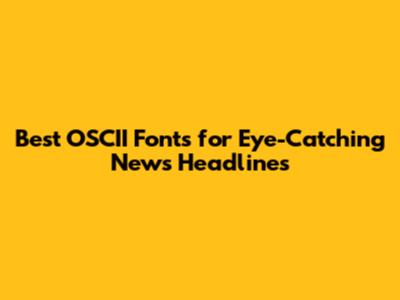
Best OSCII Fonts For Eye-Catching News Headlines
Choosing the right font for your news headlines is crucial. It’s the first thing readers see, and it can significantly impact whether they decide to click and read the full story. In this article, we'll dive deep into the world of OSCII fonts, exploring why they are effective for news headlines and highlighting some of the best options available. Let's get started, guys!
Why OSCII Fonts Matter for News Headlines
OSCII fonts, often characterized by their clean, geometric designs, offer a unique blend of modernity and readability that can greatly enhance the visual appeal of news headlines. Readability is paramount in news headlines; the font must be clear and easily decipherable at a glance. OSCII fonts, with their simplified letterforms, excel in this aspect, ensuring that readers can quickly grasp the headline's message. This is especially important in today's fast-paced digital environment, where attention spans are short, and users are bombarded with information. A well-chosen OSCII font can cut through the noise and capture the reader's attention effectively.
Moreover, OSCII fonts bring a sense of modernity to news headlines. Their sleek lines and minimalist designs align well with contemporary aesthetics, making the news content appear current and relevant. This can be particularly beneficial for online news platforms that want to project a forward-thinking image. The clean, uncluttered appearance of OSCII fonts also helps to create a sense of professionalism and credibility, which is essential for building trust with readers. In a world where misinformation is rampant, using a font that conveys reliability can make a significant difference in how the news is perceived.
Another advantage of OSCII fonts is their versatility. They can be used across various news categories, from hard news to lifestyle articles, without looking out of place. This adaptability makes them a practical choice for news organizations that need a consistent and cohesive branding strategy. Additionally, many OSCII fonts come in different weights and styles, allowing for further customization to suit specific design needs. Whether you need a bold font to grab attention or a lighter font for a more subtle approach, OSCII fonts offer the flexibility to achieve the desired effect.
Furthermore, OSCII fonts often render well on different devices and screen sizes, which is crucial in today's multi-platform environment. News headlines are viewed on desktops, laptops, tablets, and smartphones, and the font must maintain its readability and visual appeal across all these platforms. OSCII fonts are designed to be legible even at small sizes, ensuring that the headline remains clear and impactful regardless of the device used. This responsiveness is essential for providing a seamless user experience and maximizing engagement with the news content.
In summary, OSCII fonts are a valuable asset for creating effective news headlines. Their readability, modernity, versatility, and responsiveness make them a compelling choice for news organizations looking to enhance their visual communication. By carefully selecting the right OSCII font, news platforms can significantly improve the impact of their headlines and attract a wider audience.
Top OSCII Font Choices for News Headlines
Selecting the right OSCII font can be a game-changer for your news headlines. Here are some top contenders:
1. Montserrat
Montserrat is a widely beloved sans-serif font that exudes a modern and clean aesthetic. Its versatility makes it an excellent choice for news headlines across various topics. The font's clear letterforms ensure readability, even at smaller sizes, making it suitable for both print and digital media. Montserrat's popularity stems from its balanced design, which combines geometric precision with a touch of human warmth. This balance makes it visually appealing and easy to read, ensuring that readers can quickly grasp the headline's message. The font's clean lines and open spaces contribute to its overall legibility, making it a reliable choice for news organizations that prioritize clarity and accessibility.
Moreover, Montserrat offers a wide range of weights, from thin to black, providing ample flexibility for different design needs. This versatility allows news platforms to use Montserrat consistently across their branding, creating a cohesive and professional look. For instance, a bold weight can be used for primary headlines to grab attention, while a lighter weight can be used for subheadings or smaller headlines to maintain readability. The font's adaptability extends to various news categories, from hard news to lifestyle articles, making it a practical choice for news organizations that cover a broad range of topics. Whether you need a font for a serious news story or a more lighthearted piece, Montserrat can adapt to the tone and style of the content.
In addition to its aesthetic qualities, Montserrat is also highly functional. It renders well on different devices and screen sizes, ensuring that the headline remains clear and impactful regardless of the platform used. This responsiveness is crucial in today's multi-platform environment, where news headlines are viewed on desktops, laptops, tablets, and smartphones. Montserrat's consistent performance across devices ensures a seamless user experience, maximizing engagement with the news content. The font's well-designed letterforms maintain their shape and clarity even at small sizes, making it a reliable choice for mobile users.
Overall, Montserrat's combination of readability, versatility, and responsiveness makes it a top choice for news headlines. Its modern aesthetic and clean design contribute to a professional and credible image, while its wide range of weights and styles allows for customization to suit specific design needs. Whether you're looking for a font that is both visually appealing and highly functional, Montserrat is an excellent option.
2. Open Sans
Open Sans is another fantastic option, known for its neutral yet friendly appearance. Its open forms and clear strokes make it highly readable, even in longer headlines. Designed with readability in mind, Open Sans is an excellent choice for news platforms that prioritize clarity and accessibility. The font's neutral appearance ensures that it doesn't distract from the content of the headline, allowing readers to focus on the message. Its friendly demeanor makes it approachable and inviting, encouraging readers to engage with the news content. Open Sans is a versatile font that can be used across various news categories, from hard news to opinion pieces, without looking out of place.
One of the key features of Open Sans is its open forms, which refer to the shape of the letters. The open forms allow for more white space within the letters, making them easier to distinguish from one another. This is particularly important for headlines, where readability is crucial. The clear strokes of Open Sans also contribute to its legibility, ensuring that each letter is well-defined and easy to recognize. These design elements make Open Sans a reliable choice for news organizations that want to ensure their headlines are easily readable by a wide audience.
Open Sans also offers a range of weights and styles, providing flexibility for different design needs. This allows news platforms to use Open Sans consistently across their branding, creating a cohesive and professional look. For instance, a bold weight can be used for primary headlines to grab attention, while a lighter weight can be used for subheadings or smaller headlines to maintain readability. The font's adaptability extends to various news categories, from hard news to lifestyle articles, making it a practical choice for news organizations that cover a broad range of topics.
Furthermore, Open Sans is optimized for screen use, ensuring that it renders well on different devices and screen sizes. This is crucial in today's multi-platform environment, where news headlines are viewed on desktops, laptops, tablets, and smartphones. Open Sans' consistent performance across devices ensures a seamless user experience, maximizing engagement with the news content. The font's well-designed letterforms maintain their shape and clarity even at small sizes, making it a reliable choice for mobile users. Its wide language support also makes it a great choice for international news platforms.
3. Roboto
Roboto is a modern sans-serif font that offers a dual nature, combining mechanical and geometric forms with friendly and open curves. This unique blend makes it a versatile choice for news headlines that need to convey both authority and approachability. The font's mechanical forms give it a sense of structure and stability, while its open curves add a touch of warmth and personality. This combination makes Roboto suitable for a wide range of news topics, from serious reporting to more lighthearted stories. Its clean lines and clear letterforms ensure readability, even at smaller sizes, making it suitable for both print and digital media.
One of the key features of Roboto is its dual nature, which allows it to adapt to different contexts. The font's mechanical forms give it a sense of precision and accuracy, making it suitable for headlines that need to convey factual information. The open curves, on the other hand, make it more approachable and inviting, encouraging readers to engage with the news content. This duality makes Roboto a versatile choice for news organizations that want to convey both authority and approachability.
Roboto also offers a range of weights and styles, providing flexibility for different design needs. This allows news platforms to use Roboto consistently across their branding, creating a cohesive and professional look. For instance, a bold weight can be used for primary headlines to grab attention, while a lighter weight can be used for subheadings or smaller headlines to maintain readability. The font's adaptability extends to various news categories, from hard news to lifestyle articles, making it a practical choice for news organizations that cover a broad range of topics.
Furthermore, Roboto is optimized for screen use, ensuring that it renders well on different devices and screen sizes. This is crucial in today's multi-platform environment, where news headlines are viewed on desktops, laptops, tablets, and smartphones. Roboto's consistent performance across devices ensures a seamless user experience, maximizing engagement with the news content. The font's well-designed letterforms maintain their shape and clarity even at small sizes, making it a reliable choice for mobile users. Its extensive language support also makes it a great choice for international news platforms.
4. Lato
Lato is a sans-serif typeface designed with harmony and elegance in mind. Its semi-rounded details give it a warm and friendly feel, while its strong structure ensures readability. This makes it an excellent choice for news headlines that aim to be both inviting and informative. Lato's balanced design makes it visually appealing and easy to read, ensuring that readers can quickly grasp the headline's message. The font's clean lines and open spaces contribute to its overall legibility, making it a reliable choice for news organizations that prioritize clarity and accessibility.
One of the key features of Lato is its semi-rounded details, which give it a warm and friendly feel. This makes it more approachable and inviting, encouraging readers to engage with the news content. The font's strong structure, on the other hand, ensures readability, even at smaller sizes. This combination of warmth and structure makes Lato a versatile choice for news organizations that want to convey both friendliness and authority.
Lato also offers a range of weights and styles, providing flexibility for different design needs. This allows news platforms to use Lato consistently across their branding, creating a cohesive and professional look. For instance, a bold weight can be used for primary headlines to grab attention, while a lighter weight can be used for subheadings or smaller headlines to maintain readability. The font's adaptability extends to various news categories, from hard news to lifestyle articles, making it a practical choice for news organizations that cover a broad range of topics.
Furthermore, Lato is optimized for screen use, ensuring that it renders well on different devices and screen sizes. This is crucial in today's multi-platform environment, where news headlines are viewed on desktops, laptops, tablets, and smartphones. Lato's consistent performance across devices ensures a seamless user experience, maximizing engagement with the news content. The font's well-designed letterforms maintain their shape and clarity even at small sizes, making it a reliable choice for mobile users. Its extensive language support also makes it a great choice for international news platforms.
Tips for Using OSCII Fonts Effectively
To make the most of OSCII fonts in your news headlines, consider these tips:
- Contrast is Key: Pair your OSCII font with a contrasting font for body text to create visual interest.
- Consider Font Weight: Use bolder weights for emphasis and lighter weights for a more subtle approach.
- Test Readability: Always test your headlines on different devices and screen sizes to ensure readability.
- Maintain Consistency: Use a consistent font family across your news platform to build brand recognition.
By following these guidelines, you can effectively use OSCII fonts to create eye-catching and informative news headlines that resonate with your audience. So, go ahead and experiment with these fonts and elevate your news presentation, guys!